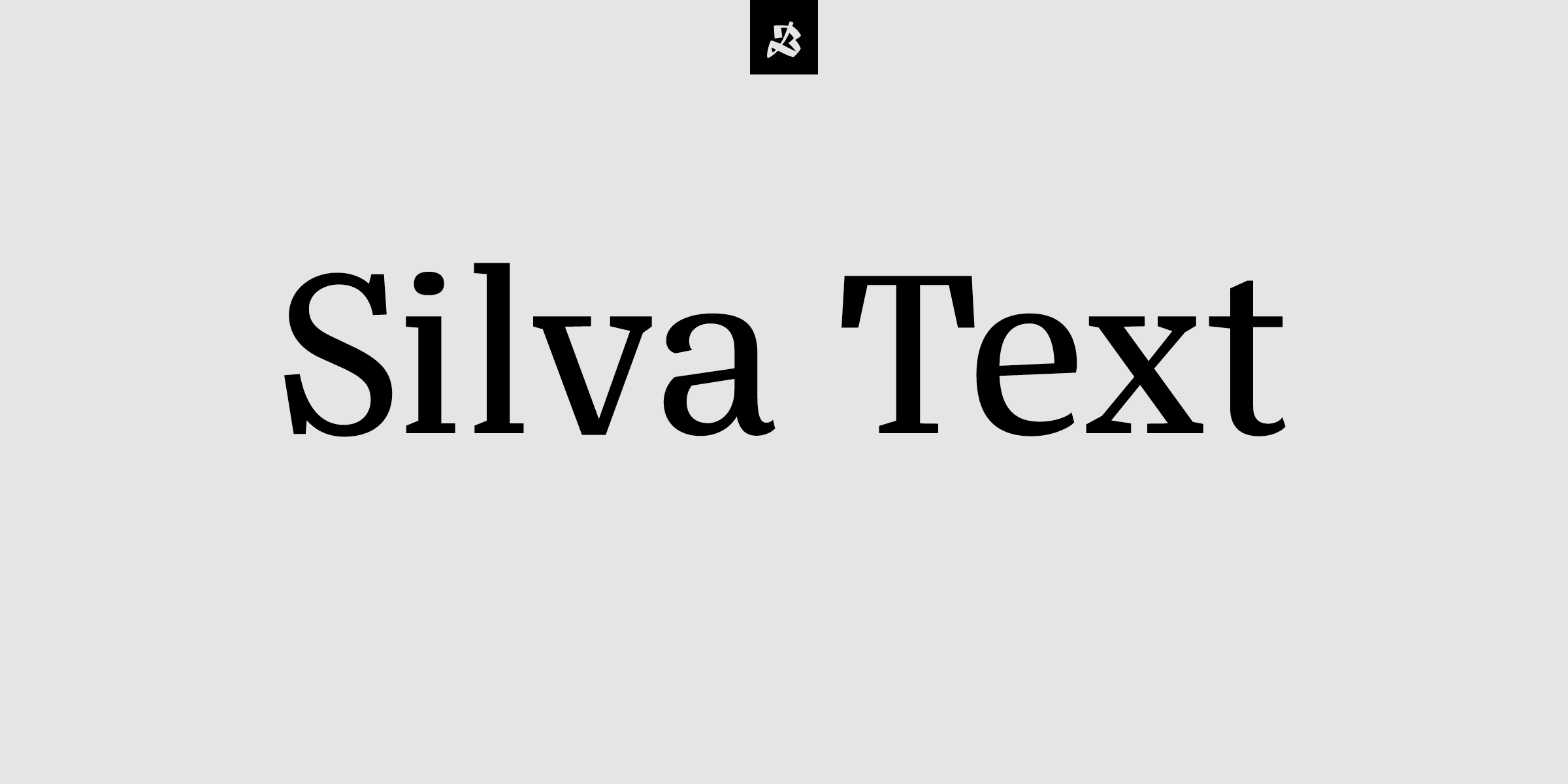
Silva Text is a serif font family. This typeface has ten styles and was published by Blackletra.
Designed primarily for editorial use, Silva is a superfamily ideal for typographically complex environments requiring a highly versatile typeface. With slightly condensed proportions, generous x-height, moderated ascenders and descenders and robust serifs, it is an extremely readable and economic type.
Subdivided in two optical sizes, the family has a total of 26 fonts including italics. Silva has an extensive character set — with extensive language support — that provides both old style and lining figures as well as their respective tabular versions, fractions, various ligatures, small capitals, arrows and a number of different symbols.